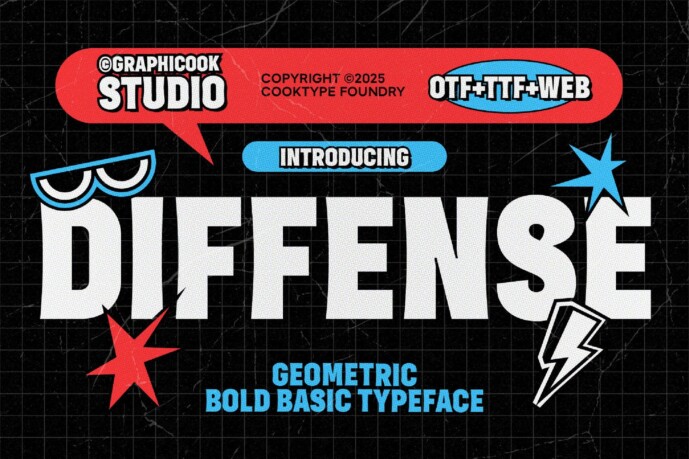
Diflense Font
Designer: graphicook
Diflense is a sans-serif font featuring bold letterforms and a cartoon-inspired style that adds a playful touch. It’s ideal for comic books, children’s books, toy packaging, or event branding.